9 Essential Pixel Fonts Every Gamer and Content Creator Should Know
A must have font kit for youtubers and game developers
As someone who's spent countless hours tweaking thumbnails and agonizing over game UI design, I've learned that the right font can make or break your visual identity. Pixel fonts in particular hold a special place in gaming culture - they're not just nostalgic throwbacks, but practical tools that can give your content that perfect retro-modern edge.
After years of experimenting (and yes, making some questionable font choices along the way), I've narrowed down my absolute favorites. Here are 9 pixel fonts that deserve a place in every gamer, YouTuber, and game developer's toolkit.
1. Chonky Bits: The Bold Statement Maker
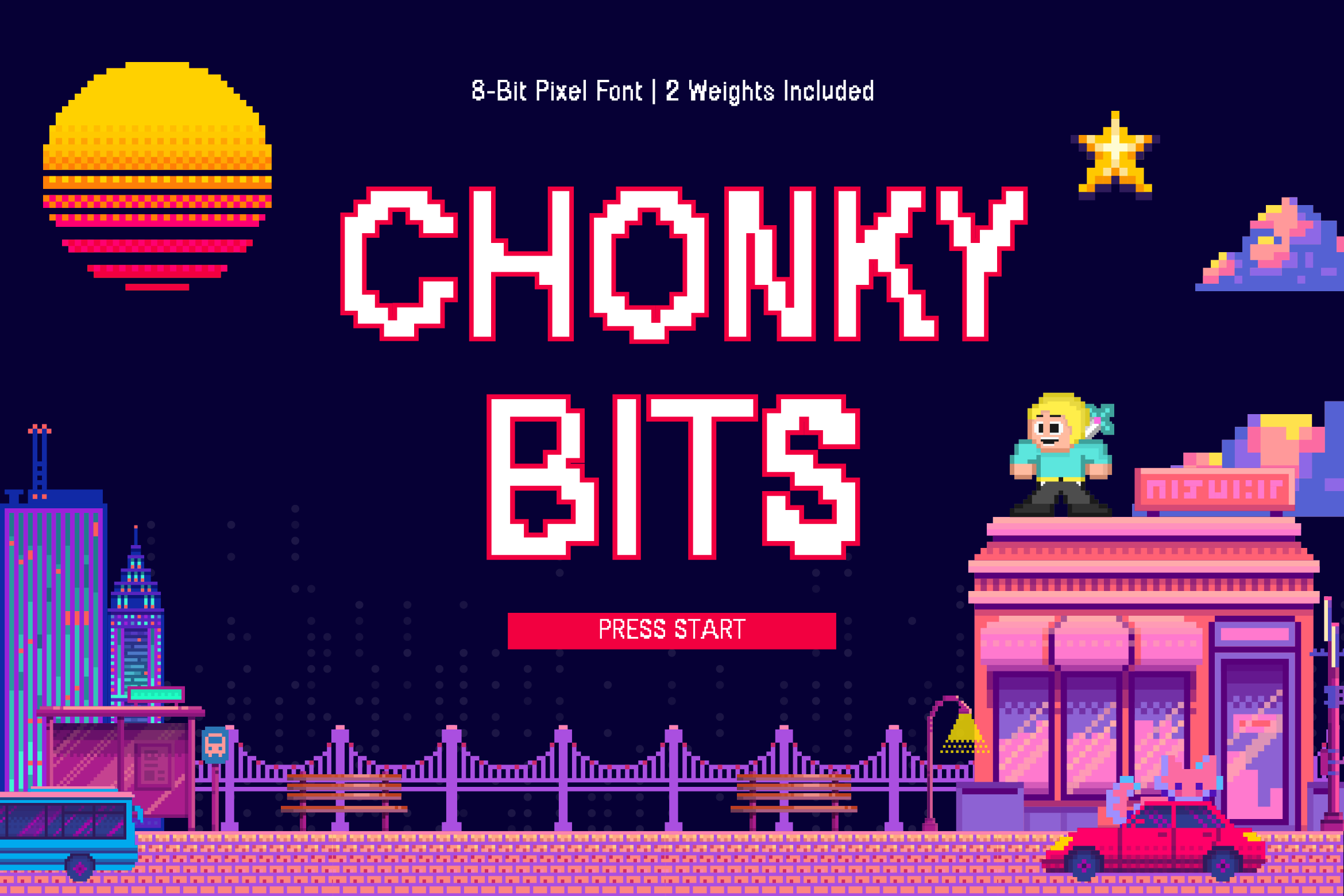
I discovered Chonky Bits while desperately searching for something that wouldn't disappear in my YouTube thumbnails, and it was love at first sight. This font means business with its thick, blocky character that practically jumps off the screen.
What makes Chonky Bits special is how it balances that bold pixelated charm without sacrificing readability. I've used it for game title screens, stream overlays, and anywhere I need text that commands attention without looking like I'm trying too hard. It's become my go-to for projects where I need that perfect blend of retro gaming aesthetics and modern visibility.
2. Stamp Press: The Character-Filled Classic
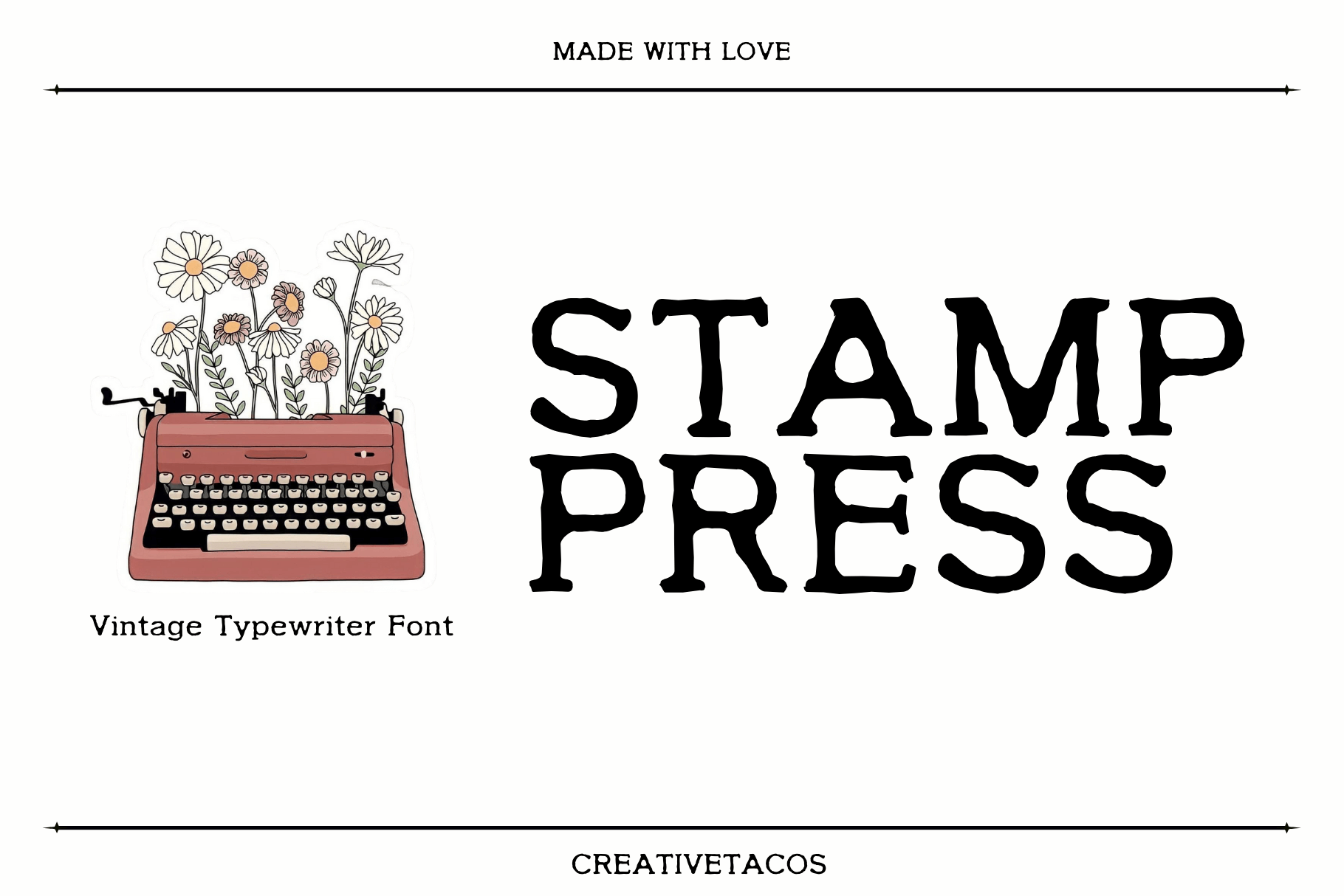
Though technically more of a typewriter font than pure pixel art, Stamp Press has earned its place in my regular rotation. It delivers that slightly imperfect, mechanical feel that works beautifully for dialogue boxes and narrative elements.
What I love most about Stamp Press is how it adds personality to text without overwhelming the design. Its uniform character width makes formatting a breeze, and those slightly distressed edges give everything a handcrafted feel that's increasingly rare in our ultra-polished digital world. It's my secret weapon when I want something that feels both nostalgic and refreshingly authentic.
3. Press Start 2P: Pure Arcade Nostalgia
When I need to transport viewers straight back to the arcade era, Press Start 2P is unmatched. This font perfectly captures that classic 8-bit console typography that defined gaming's golden age.
I've found it works beautifully for headers and UI elements, especially in projects where you want to evoke that quarter-munching arcade cabinet feeling. Yes, it takes up more horizontal space than most fonts, but that's part of its charm – it commands attention and comes packed with instant recognition value. Just seeing it takes me back to those late nights at the arcade, which is exactly the feeling I often want to capture.
4. VCR OSD Mono: The Retro-Tech Champion
The first time I used VCR OSD Mono in a project, viewers immediately commented on the "cool 80s vibe" it brought. This monospaced font recreates the look of text from old VCR displays and early computer terminals with remarkable accuracy.
What makes this font particularly versatile is how it bridges multiple nostalgic aesthetics – it works for cyberpunk themes, horror games (think security camera footage), and vaporwave aesthetics. I've used it for stream overlays during retro gaming sessions, and it perfectly complements the pixelated graphics while maintaining excellent readability.
5. Minecraft Font: Instant Recognition
Sometimes you want a font that connects immediately with your audience, and few do that better than fonts inspired by Minecraft's iconic typography. Whether you're creating content about the game itself or just want to tap into that blocky, sandbox aesthetic, this font family offers instant recognition.
I've found it particularly effective for younger audiences who might not connect with the older arcade-style fonts. It's become visual shorthand for creativity, exploration, and user-generated content – all powerful associations for any gaming project.
6. Bit Potion: RPG Perfection
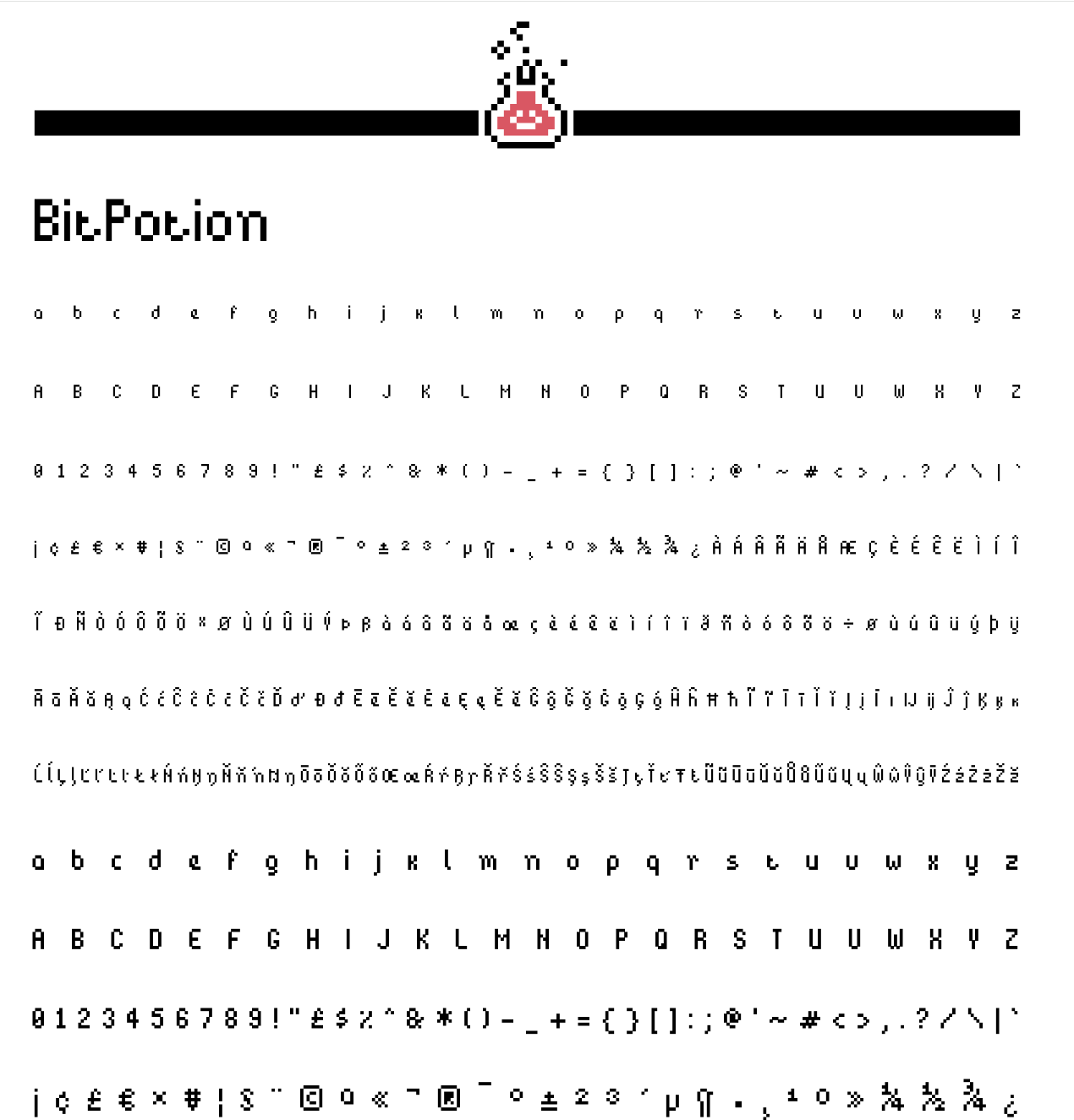
For anyone creating fantasy gaming content, Bit Potion is an absolute treasure. This font captures the essence of 16-bit RPG text systems – think Final Fantasy, Chrono Trigger, and other classic role-playing experiences.
What I appreciate most about Bit Potion is its versatility within the fantasy genre. I've used it for everything from dialog systems to menu interfaces, and it always brings that perfect touch of adventure. The extended character set is particularly valuable when your narrative needs special symbols or accents.
7. Nokia Cellphone FC: Y2K Nostalgia
There's something undeniably charming about this recreation of the classic Nokia phone font. For millennials like me, it immediately triggers memories of playing Snake and sending those early text messages.
I've found this font works wonderfully for mobile game interfaces, particularly when space is limited but readability can't be compromised. It's also become increasingly popular for projects aiming for that turn-of-the-millennium aesthetic. When I used it in a stream overlay package, viewers immediately commented on the nostalgia factor.